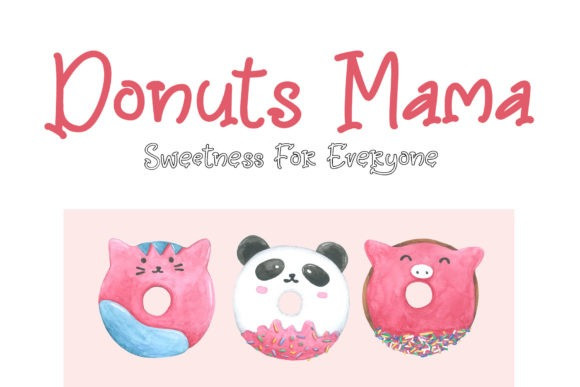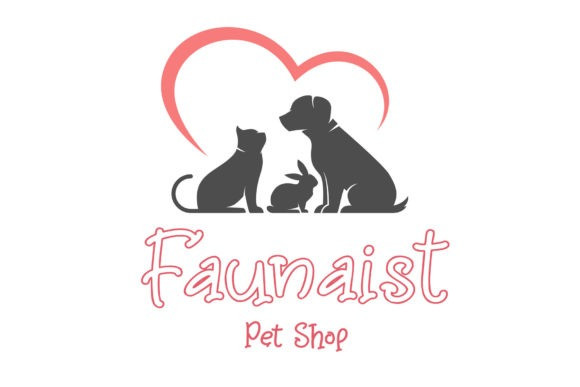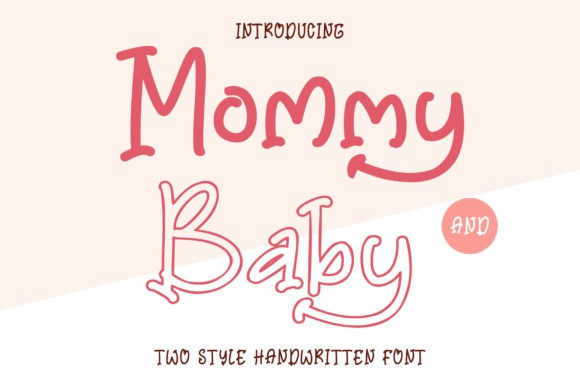
Mommy And Baby Font
Mommy and Baby Fun Font is a modern display font that is readable, fun and stylish. It is defined by smooth curves and is perfect for fashion branding or editorial designs. Add it confidently to your projects, and you will love the results.